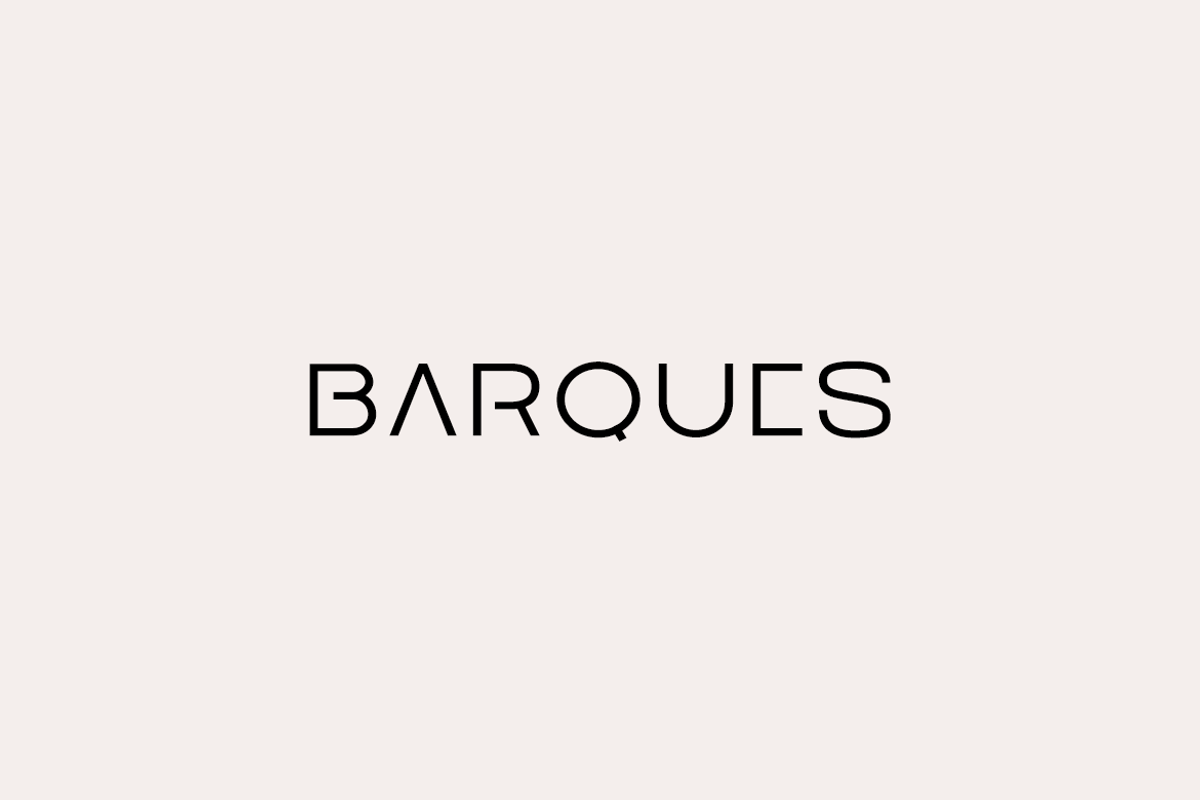
BARQUES - Display / Logo Typeface Free Download
Please note, you must purchase this font for commercial use. However, you can easily download BARQUES - Display / Logo Typeface Free Download for personal use and testing purposes. BARQUES - Display / Logo Typeface is a bold and distinctive font designed specifically for logos, headlines, and display typography. With its strong, impactful letterforms, this typeface is perfect for creating attention-grabbing designs that need to stand out. Whether you're working on a modern logo, a striking poster, or a powerful brand identity, BARQUES - Display / Logo Typeface Free Download ensures that your design makes a lasting impression. Download BARQUES - Display / Logo Typeface Free Download today and explore its creative potential before opting for a commercial license.